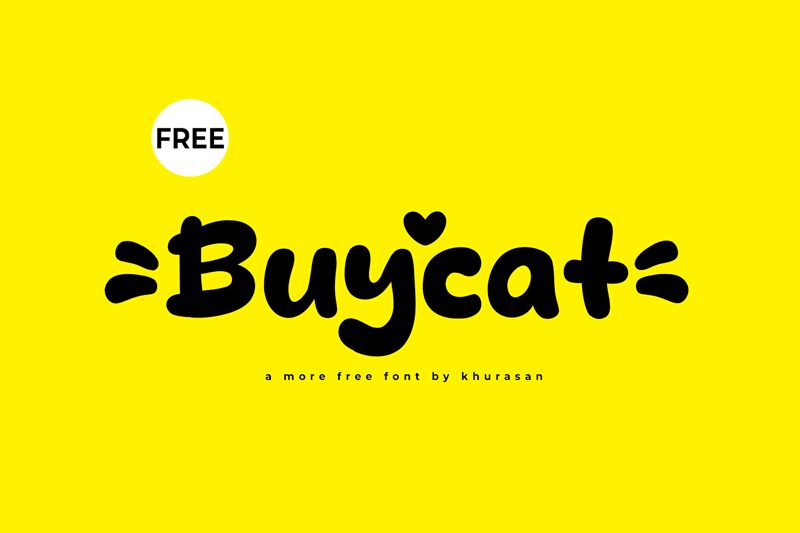
Buycat
Buycat is a captivating display font crafted by Khurasan. This bold, cartoon-style typeface exudes a playful and energetic vibe, perfect for adding a touch of whimsy to various design projects. The fluid, organic letterforms and exaggerated curves create a sense of movement and dynamism, instantly catching the viewer's attention. The font's distinctive personality lends itself well to branding, packaging, and promotional materials, where it can effectively convey a lighthearted and approachable tone.
Buycat's versatility extends beyond its stylistic appeal. Its bold, legible structure makes it a suitable choice for headlines, titles, and impactful typographic compositions. Whether used in children's books, advertising campaigns, or product labels, this font has the ability to inject a sense of fun and personality into any design, ultimately enhancing the overall visual experience for the audience.